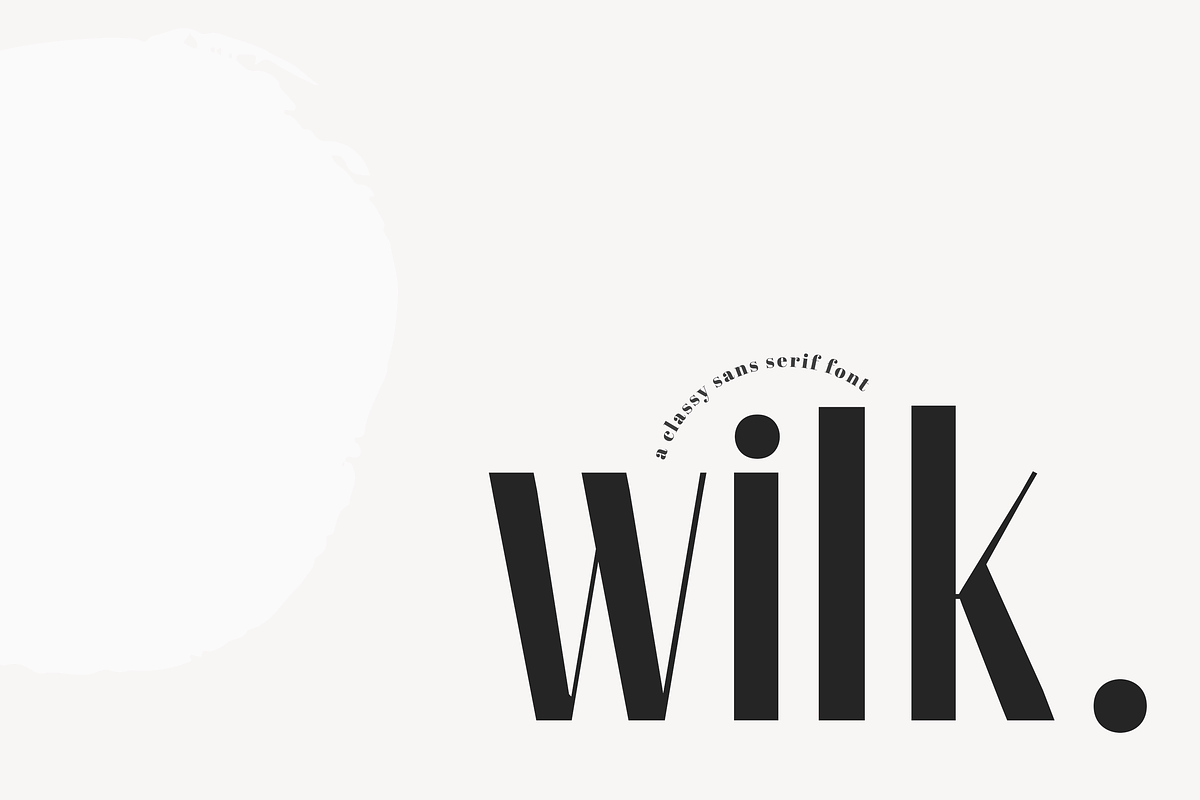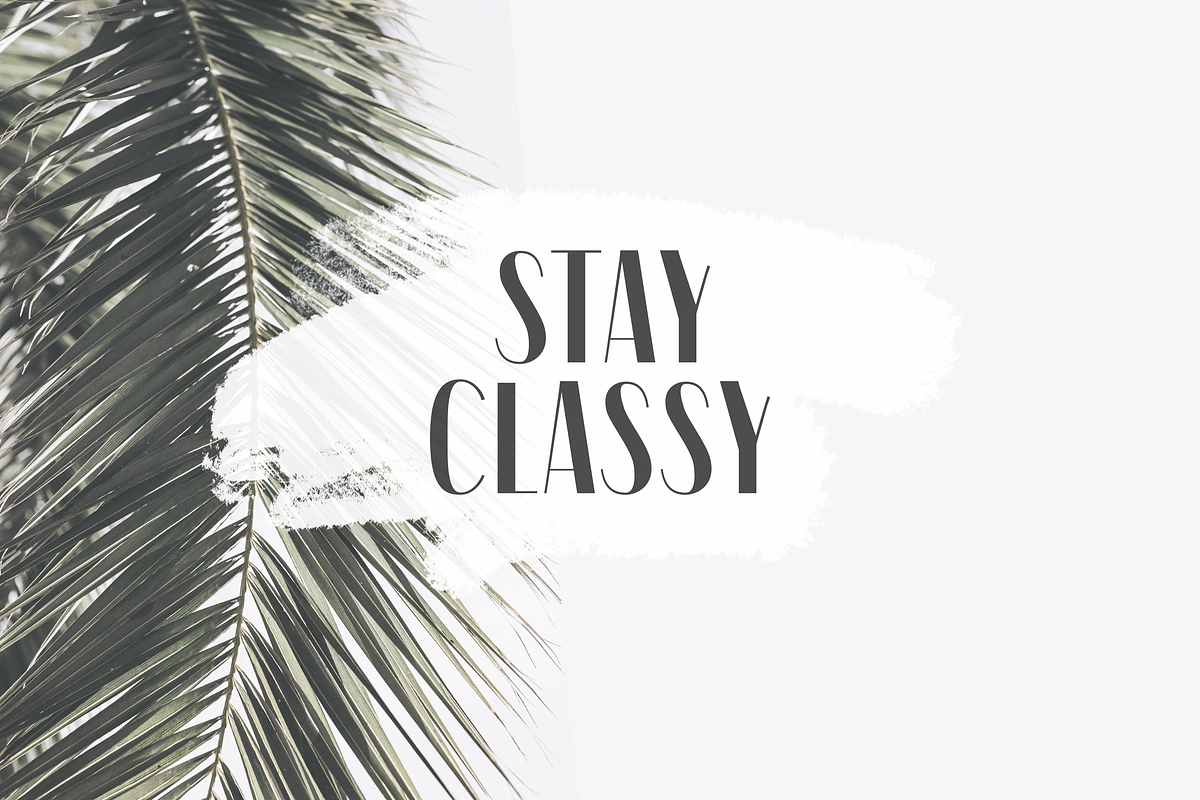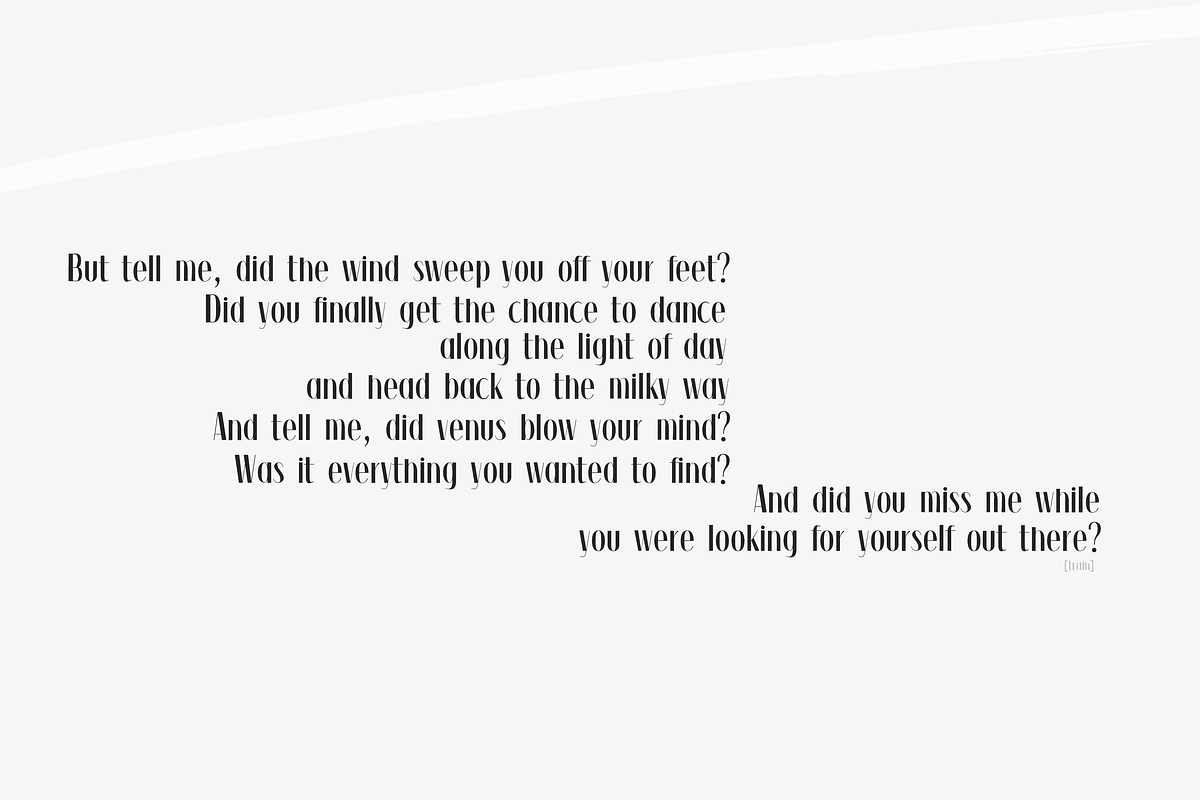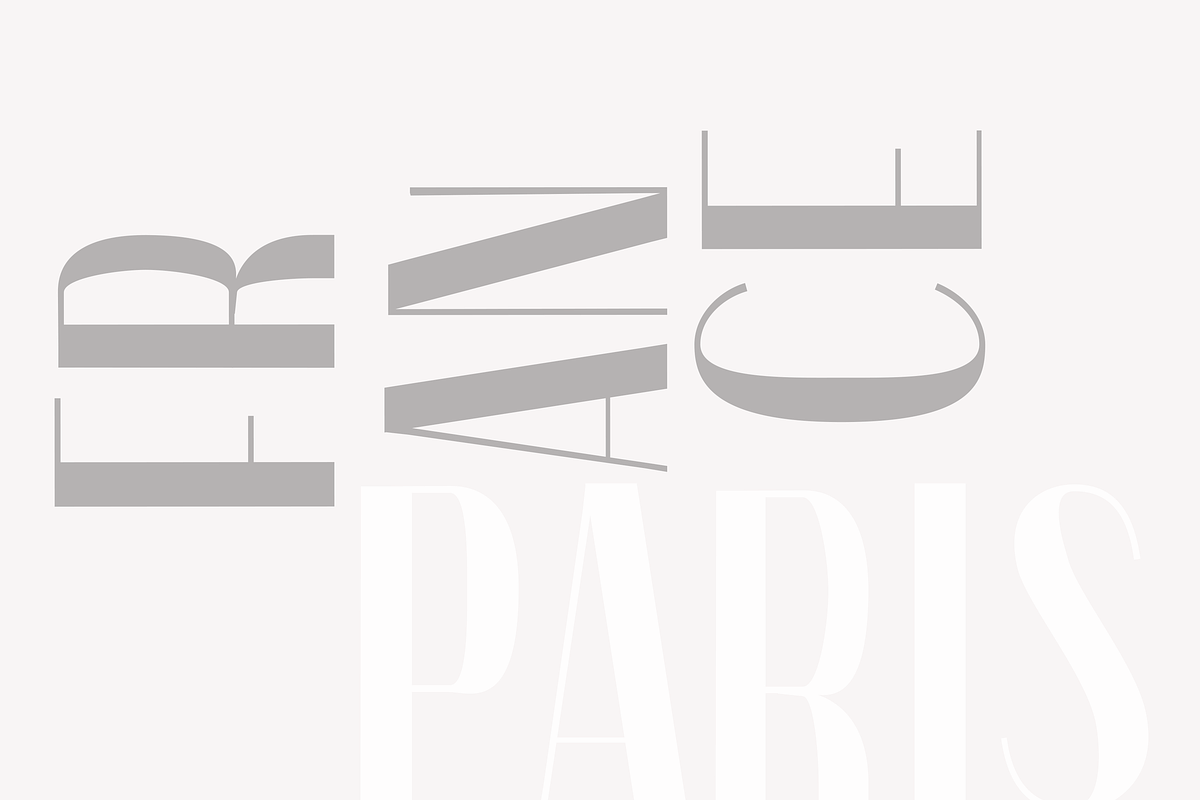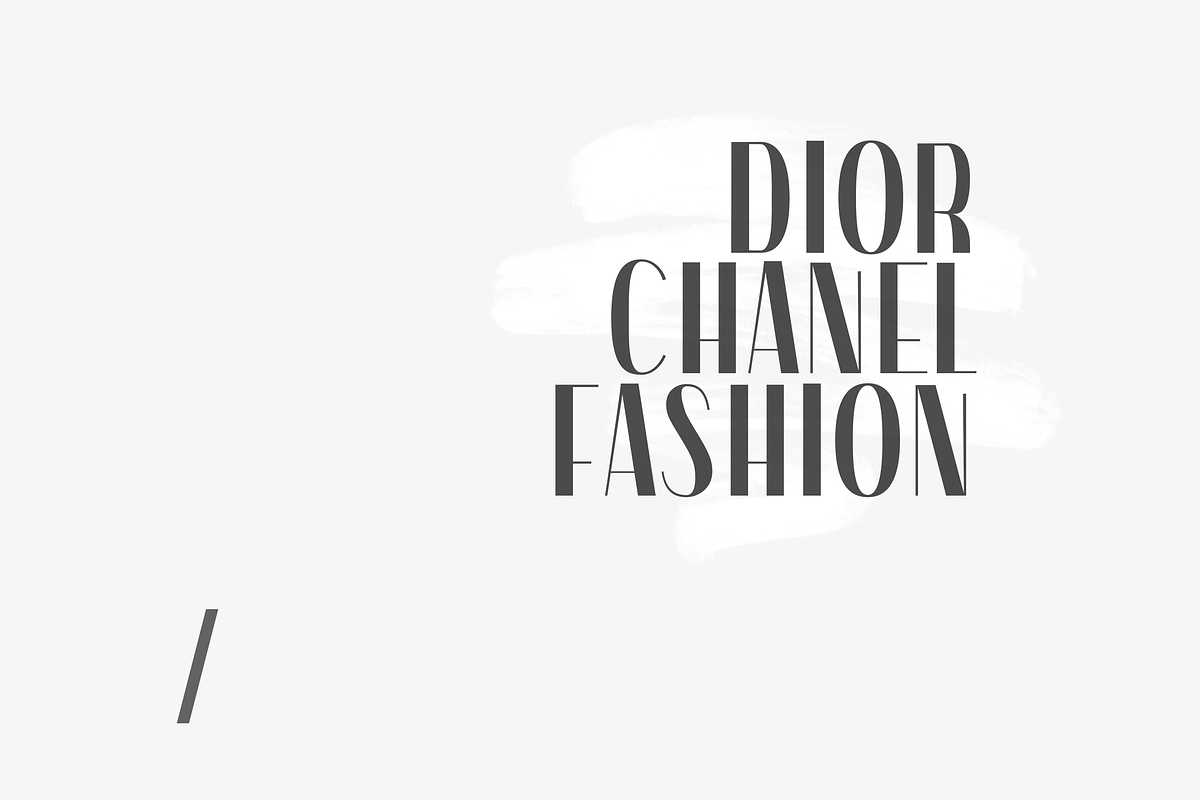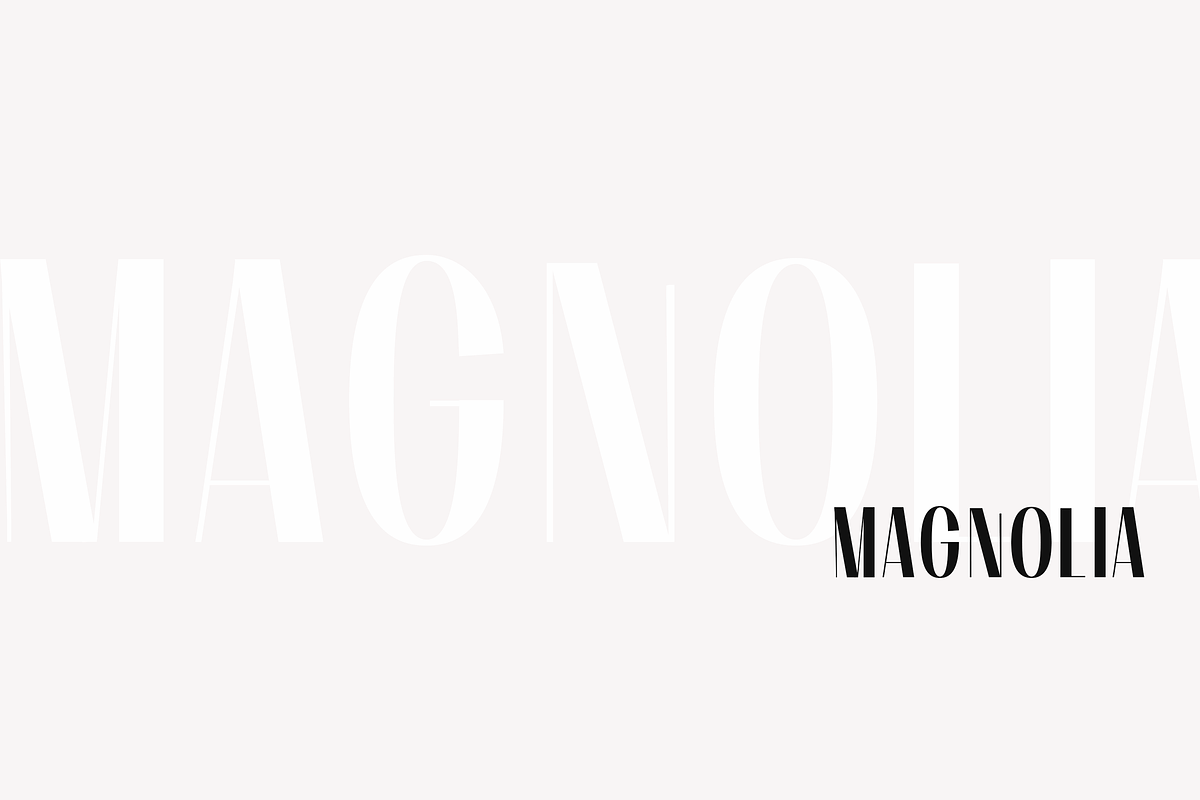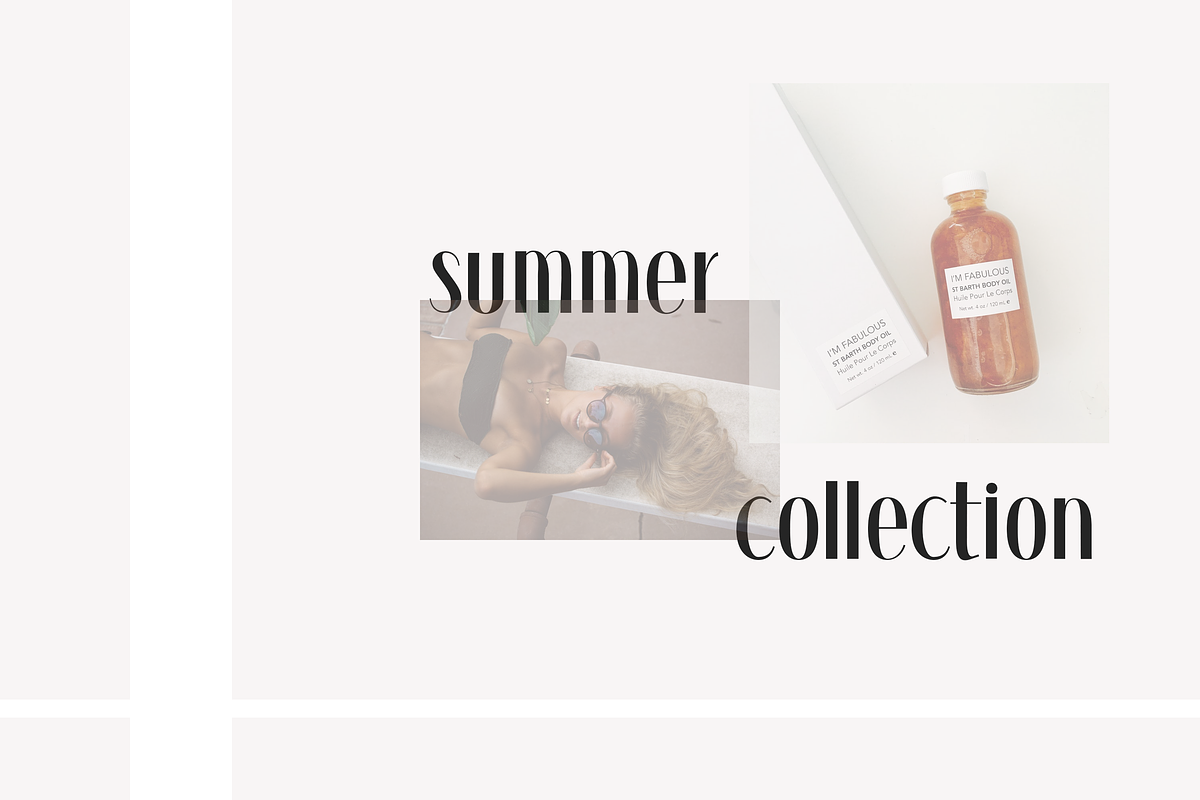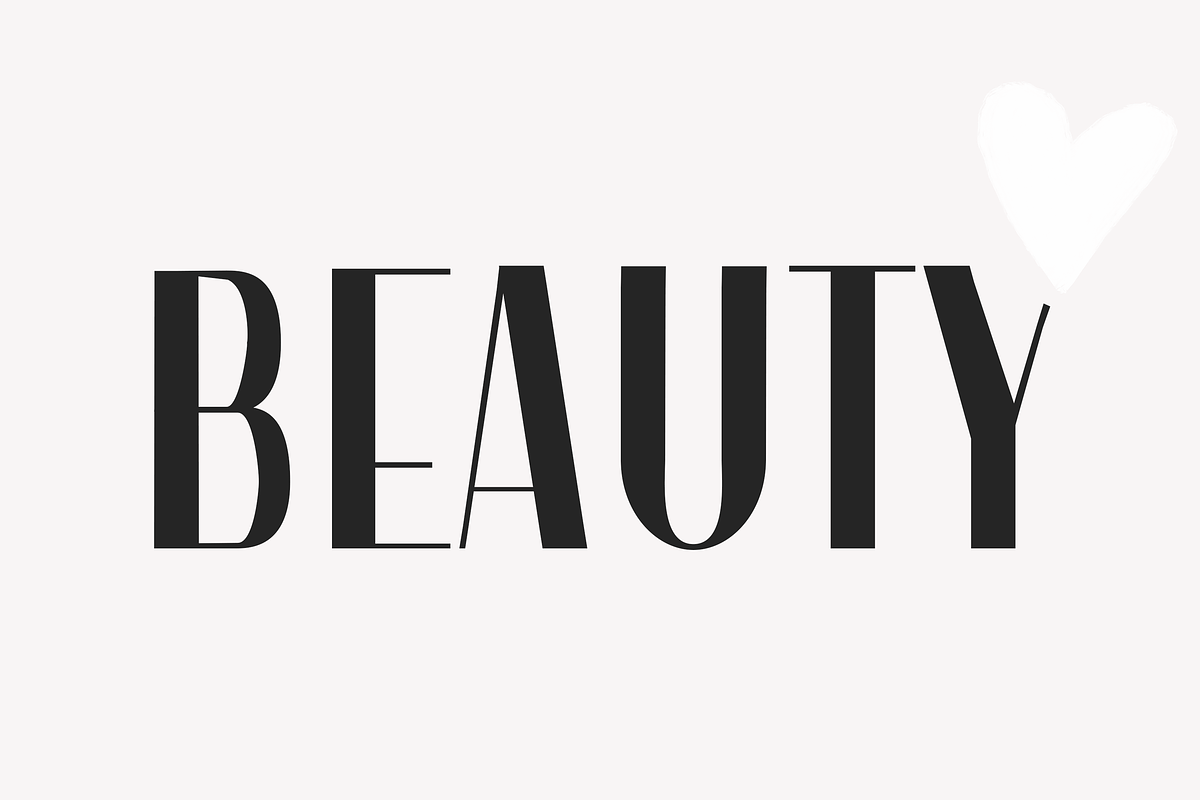
Wilk - A Classy Sans Serif Font
Wilk is a classy serif font with a bold minimalist feel.
This font would pair well with a script or signature style. It also speaks loud on its own!
This font is perfect for headings, blogs, logos, branding and more!